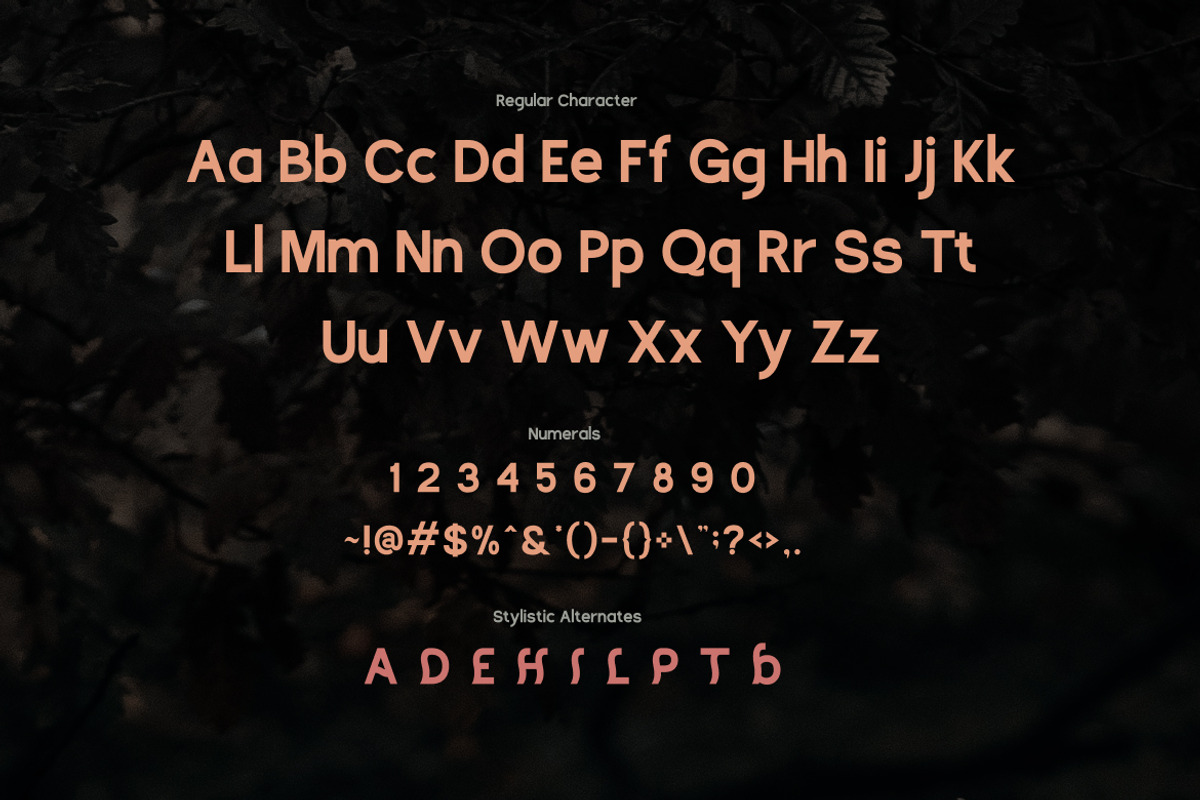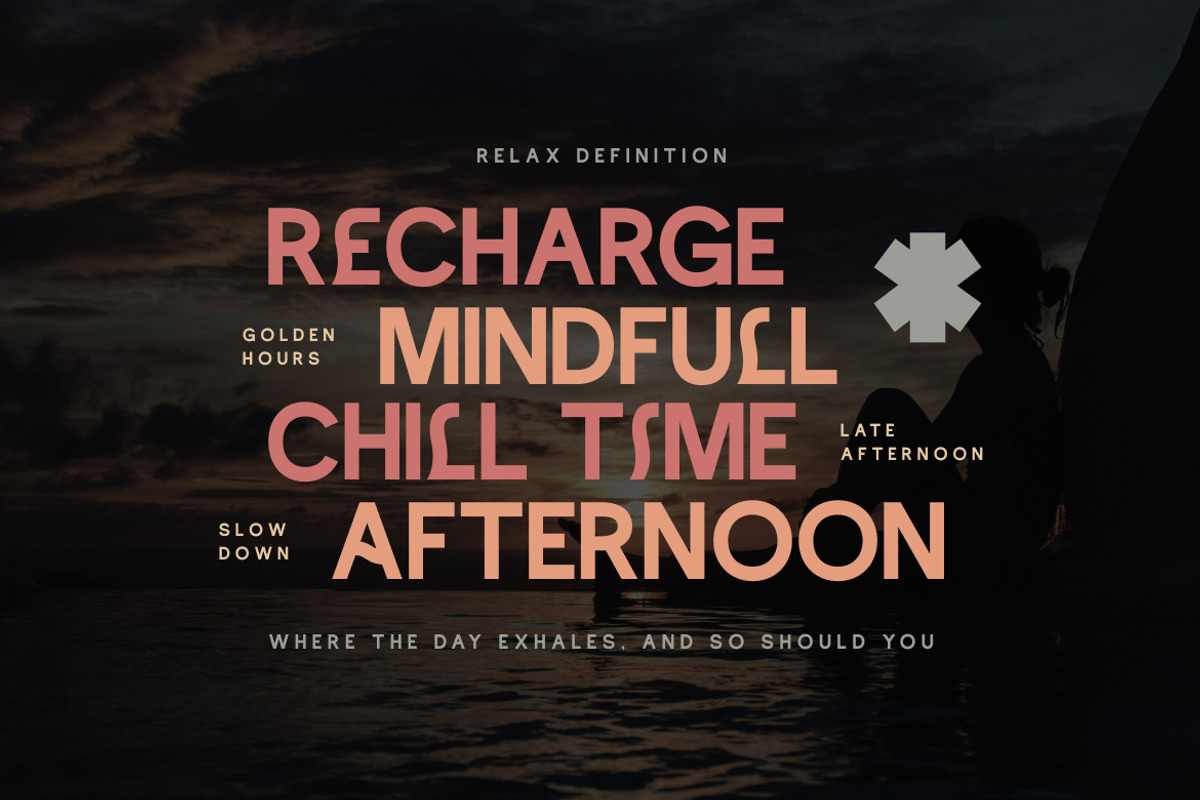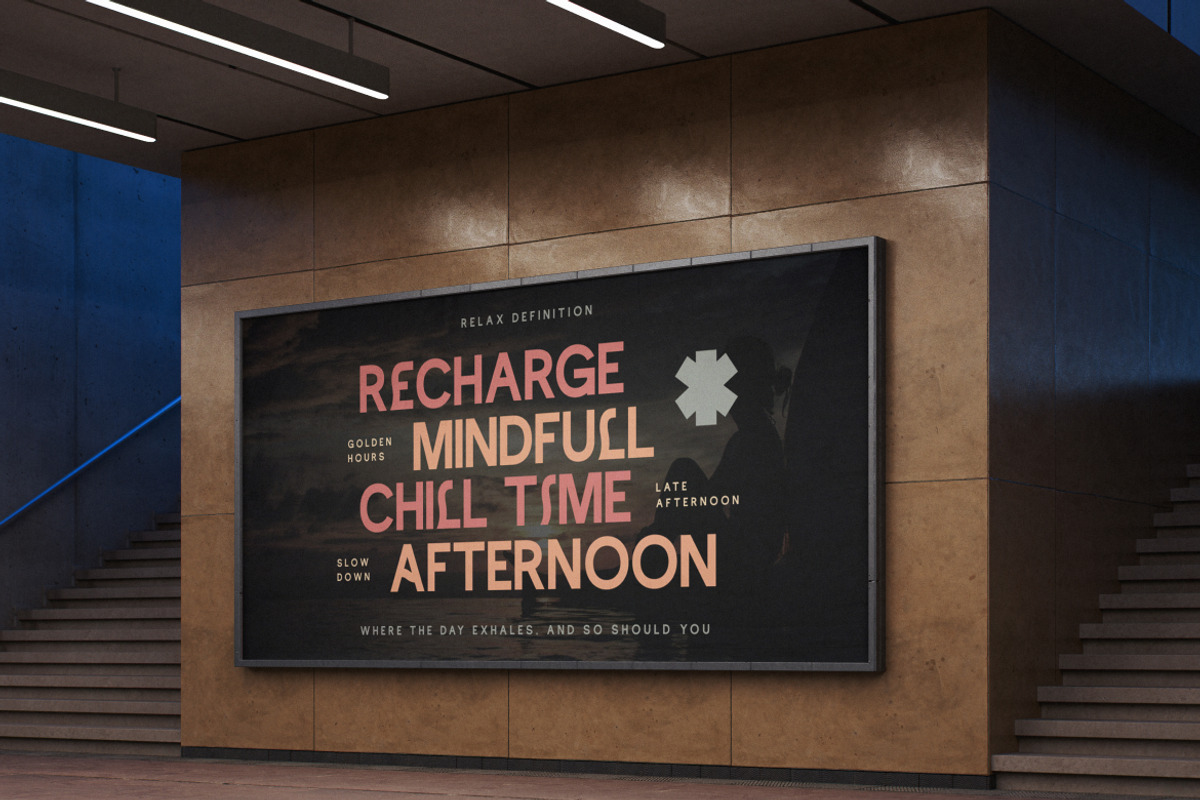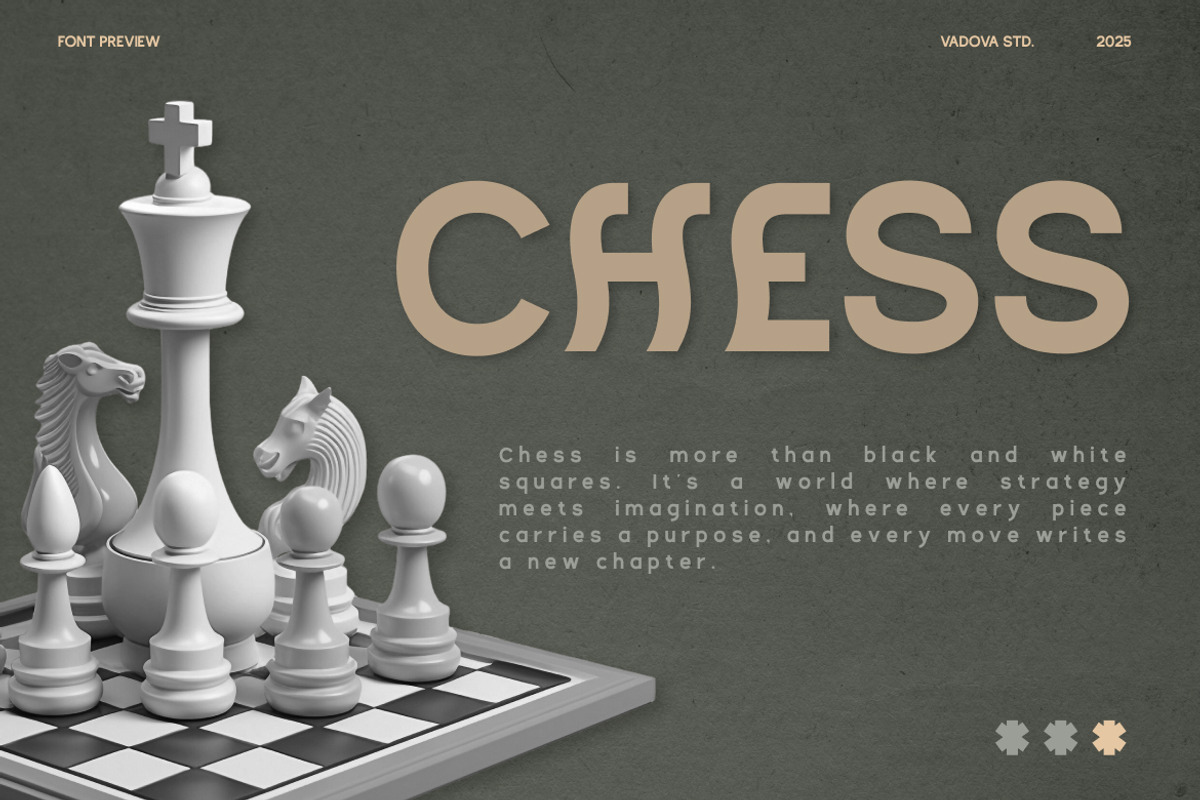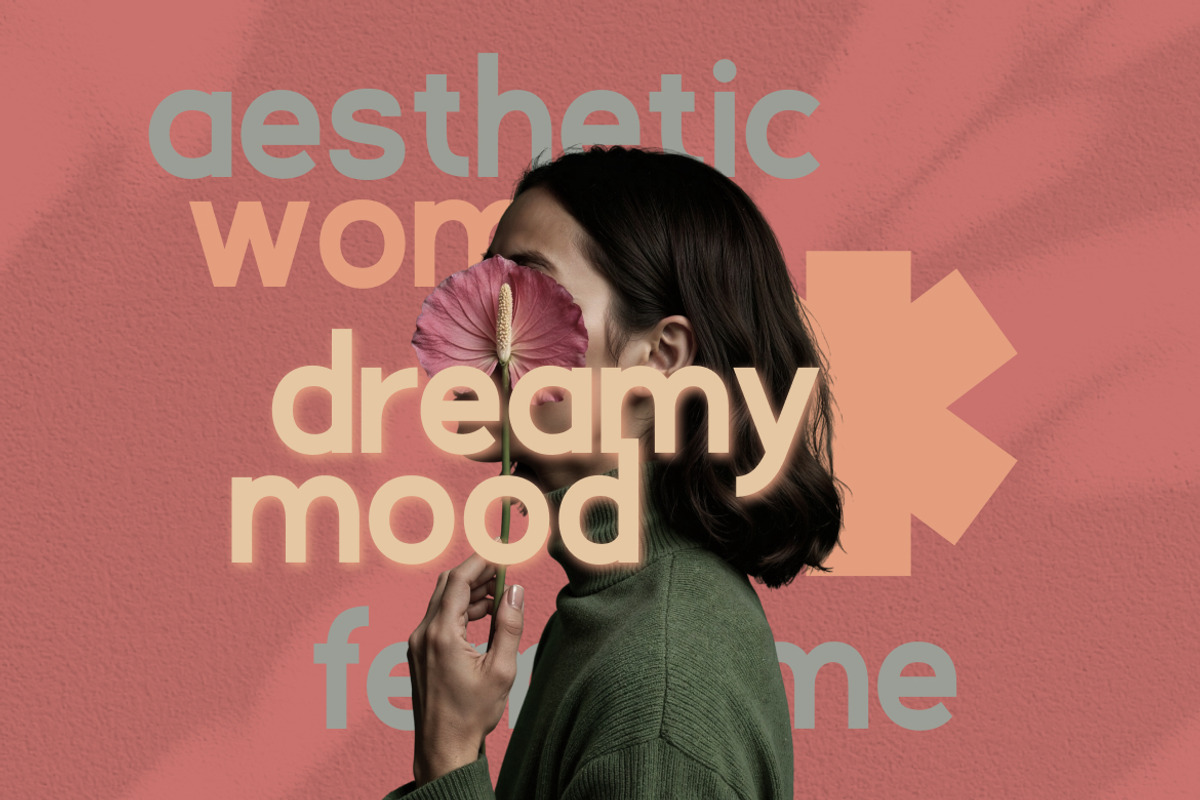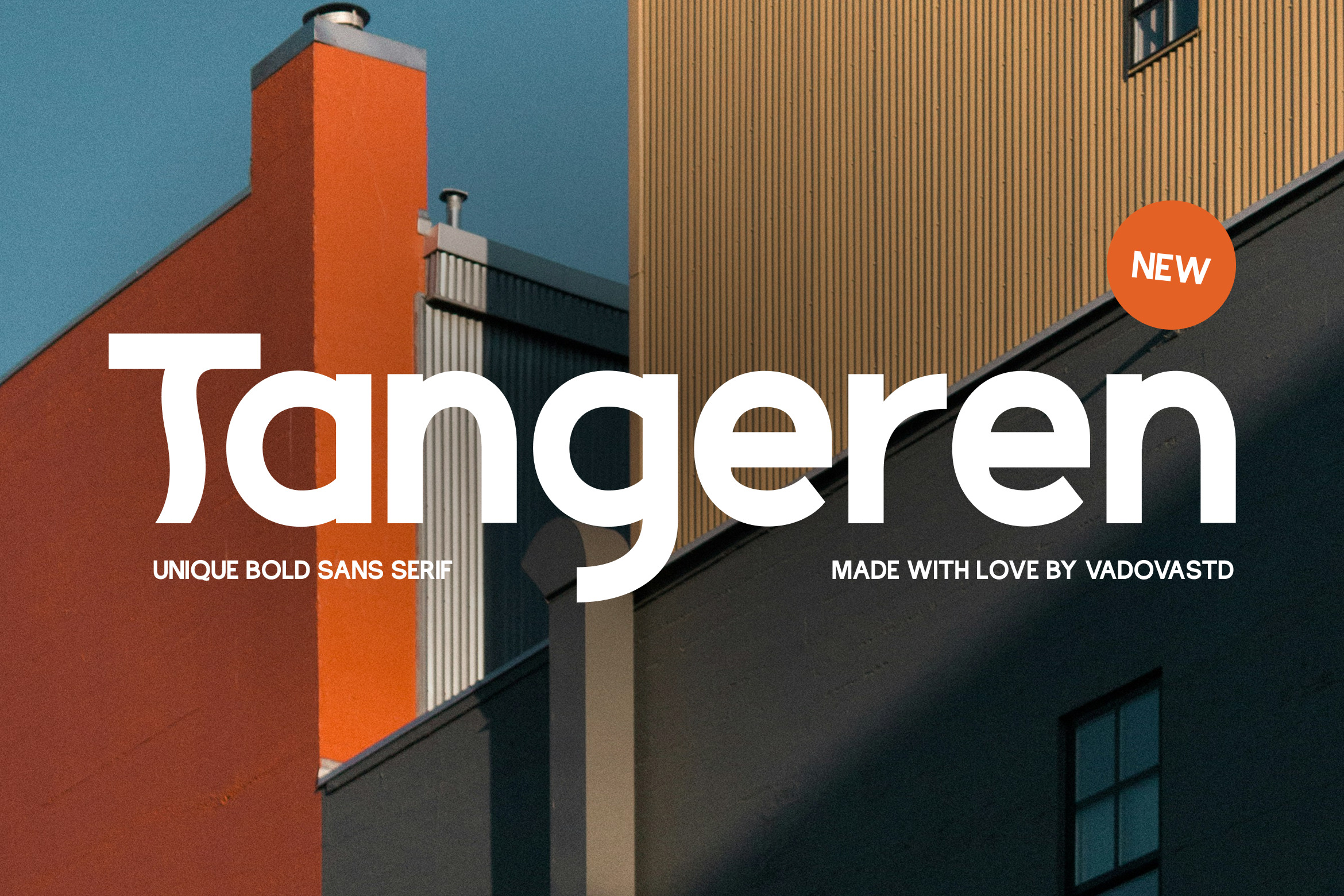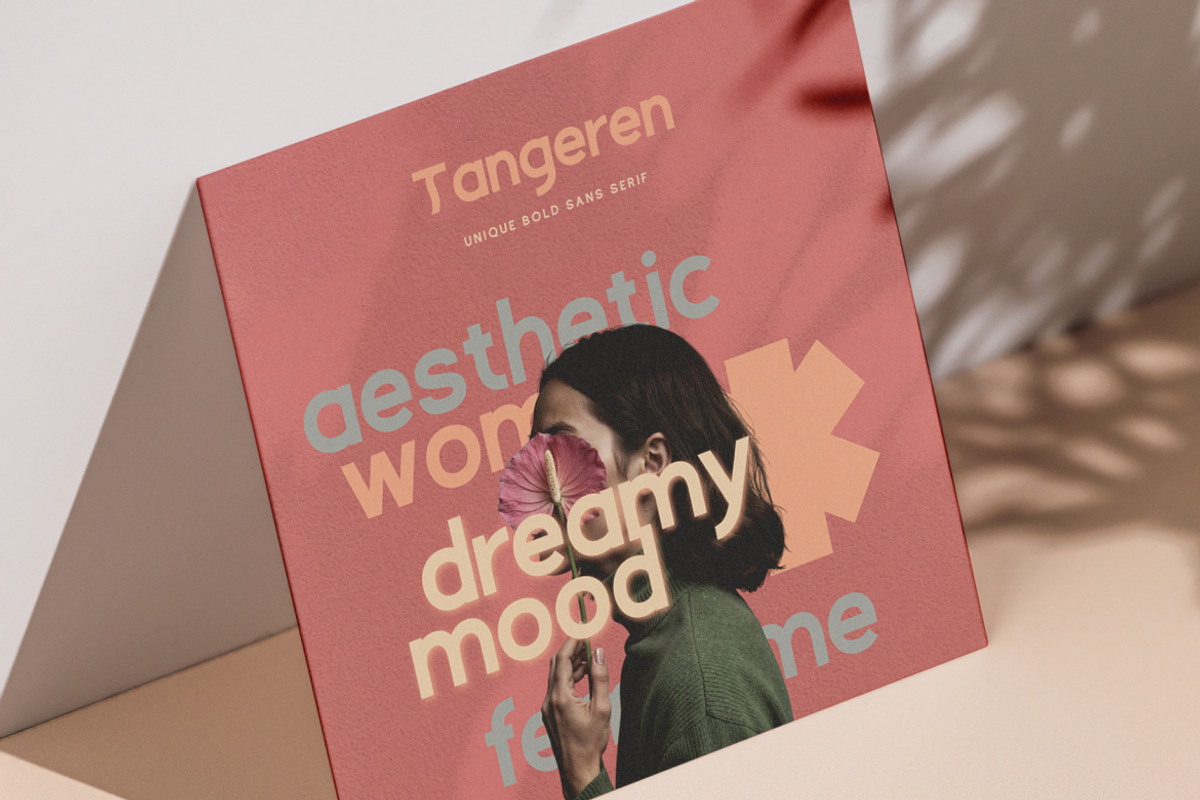
Tangeren Unique Bold Sans Serif Font
Tangeren is a striking bold sans serif typeface with distinctive character shapes and subtle stylistic flair. Designed with high legibility and visual personality in mind, this font features strong geometric foundations with gentle curves and unexpected terminals that give it a unique identity. The family includes uppercase and lowercase letters, numerals, punctuation, stylistic alternates, and multilingual support all provided in OTF, TTF, and webfont formats.
Tangeren is a versatile and expressive font well‑suited for designers and creative professionals. Its confident weights and distinctive shapes make it ideal for brand identities, logos, editorial layouts, magazine spreads, web and mobile interfaces, product packaging, posters, social media graphics, presentation graphics, and advertising collateral.
- Bold sans serif style with unique character cuts for standout impact
- Rounded terminals combined with straight stems for visual balance
- Distinctive letterforms with gentle stylistic curves and alternates
- Uniform stroke width for a clean, modern aesthetic
- Optimized for both large display settings and readable short body text
- Brand identity designs needing bold, confident personality
- Editorial layouts with modern, high-contrast visual direction
- Fashion, beauty, or lifestyle packaging with a sleek finish
- Social media templates aiming for expressive, stylish impact
- Website headers, hero text, and UI/UX for contemporary platforms
Elevate your design with bold clarity, let Tangeren speak with modern confidence